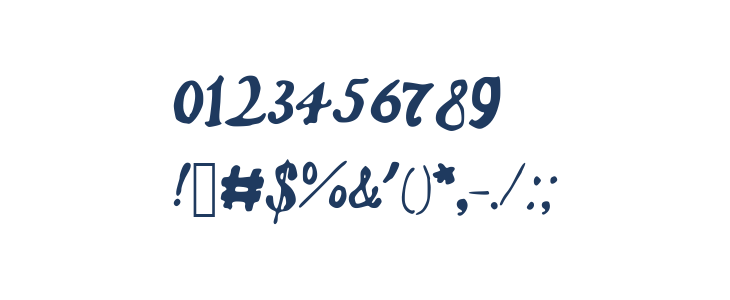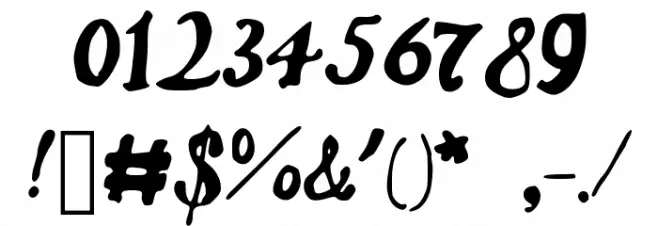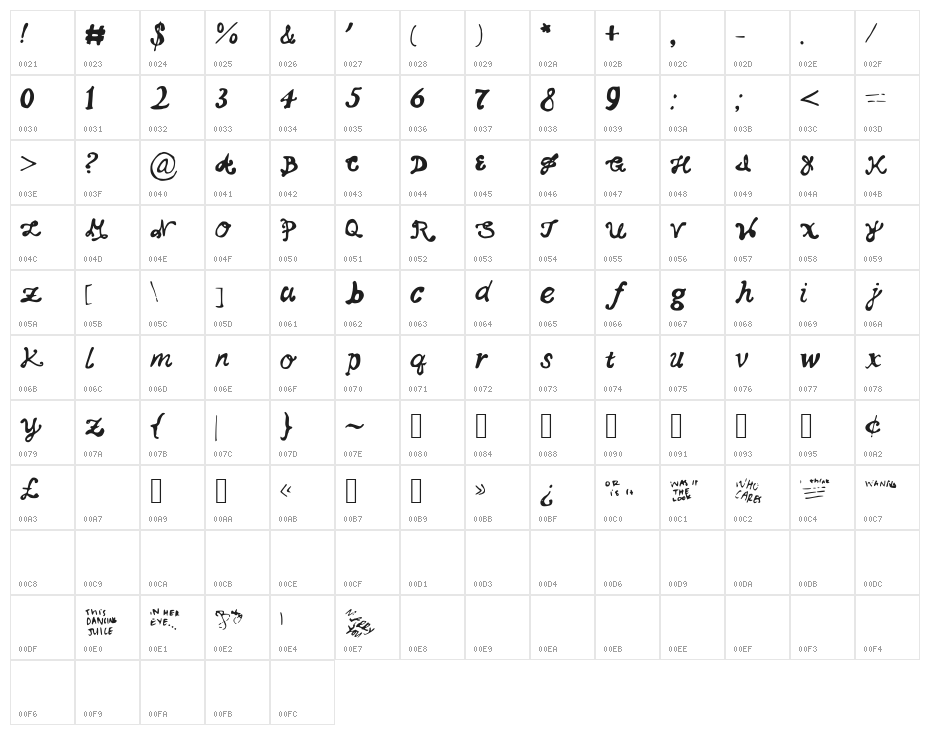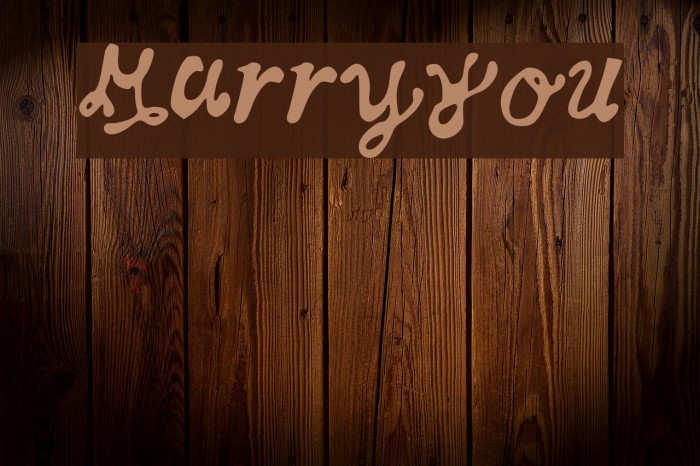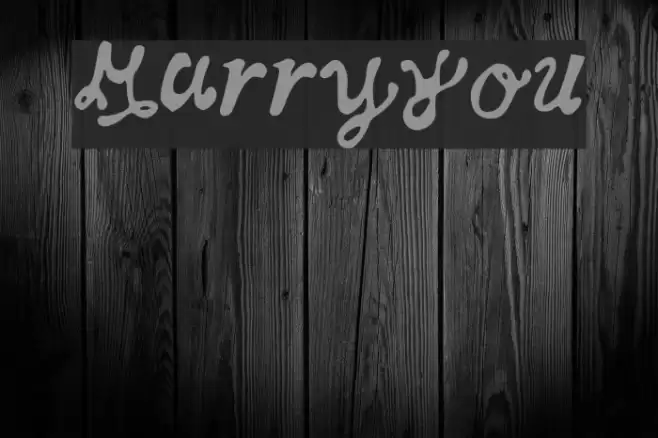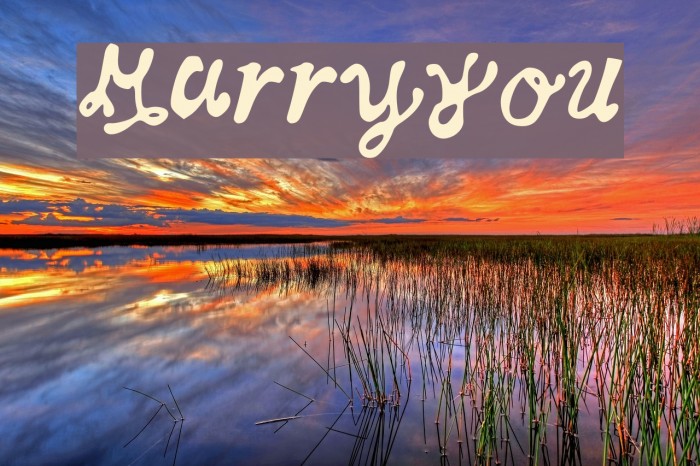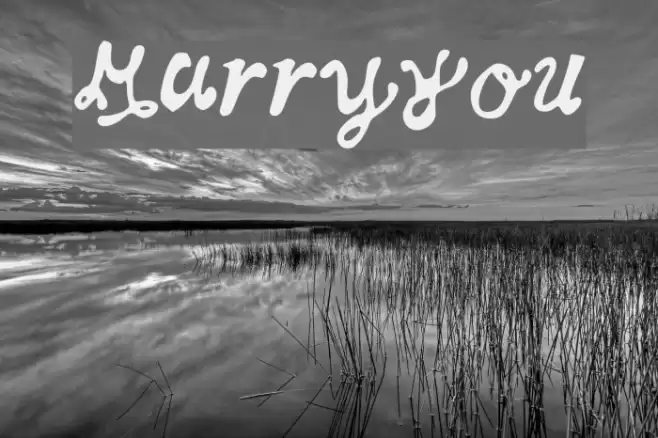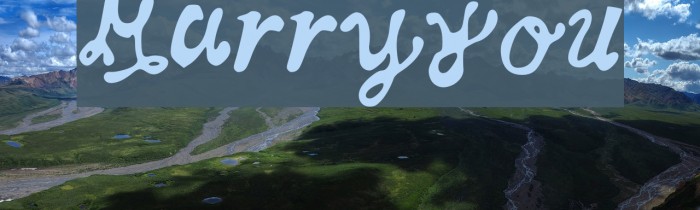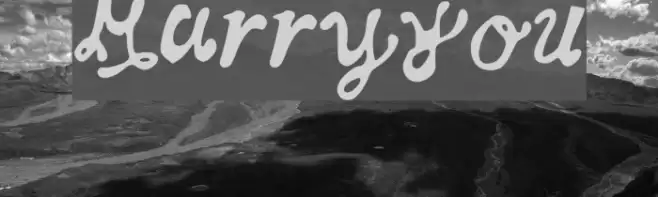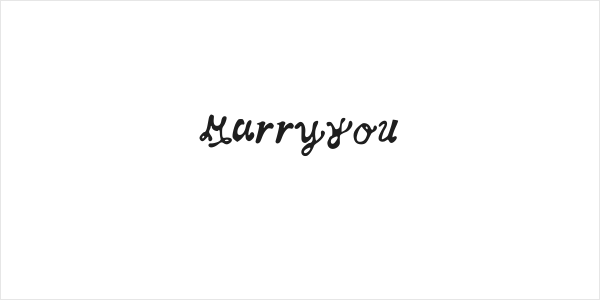
MarryYou Font
MarryYou Description
This font exhibits a playful and whimsical style, characterized by its bold and flowing script. The letters are interconnected with a smooth, cursive flair, giving it a handwritten appearance. The uppercase letters are ornate and slightly exaggerated, while the lowercase letters maintain a consistent flow. Numbers and special characters follow the same playful design, ensuring a cohesive look across all glyphs. The overall design is both decorative and legible, making it suitable for creative projects that require a touch of elegance and fun.